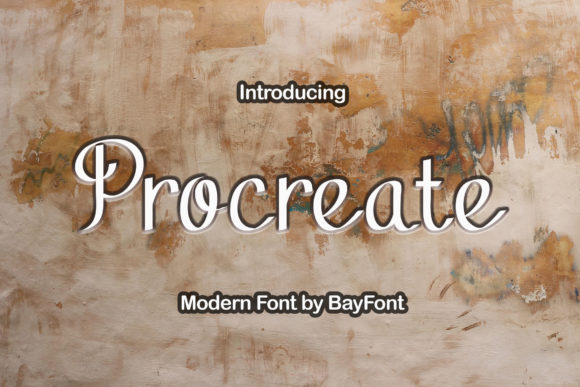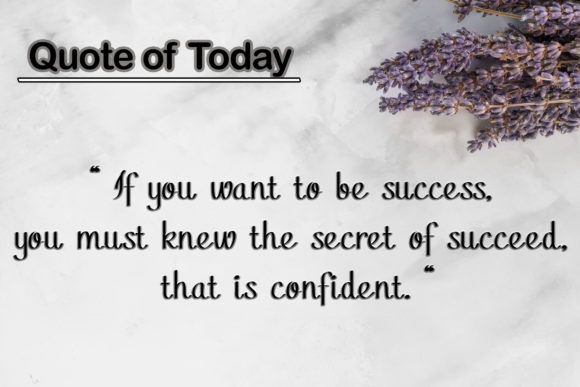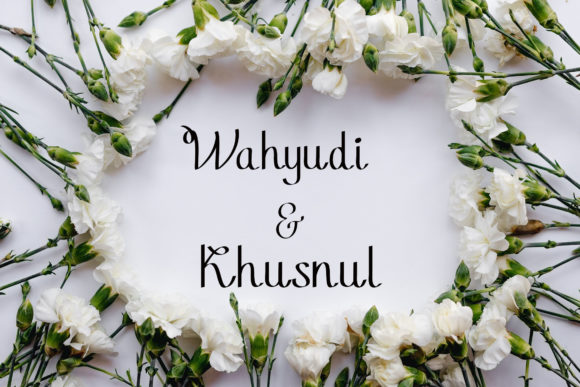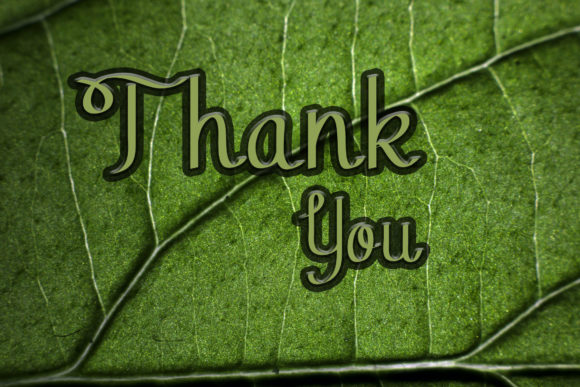
Procreate Font
About Procreate Font
Procreate is a lovely script font featuring charming, playful characters that seem to dance along the baseline. Add this font to your most creative ideas, and notice how it makes them stand out!